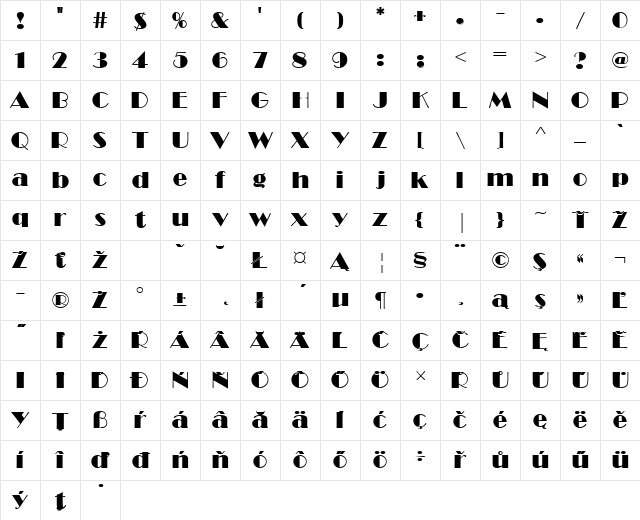
BroadwayPEE Regular
Design Context for BroadwayPEE
BroadwayPEE is a composed and adaptable typeface that performs quietly and consistently across a wide range of design contexts.